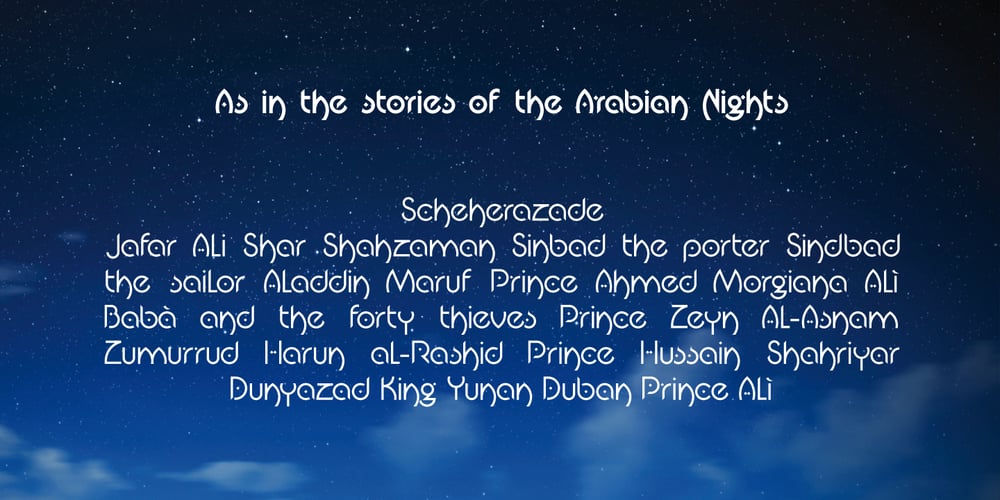
Jasmin
Jasmin font
Jasmin Font Family was designed by Vincenzo Crisafulli and published by Vincenzo Crisafulli. Jasmin contains 3 styles and family package options. Jasmin is a tribute to the ancient stories of The Thousand and One Nights, in which a main story serves as a connection for a series of other stories, just like all the other glyphs are derived from one of Jasmin’s letters or from a sign. A graphic path in which we tried to combine the calligraphy designed with a quill with geometric research. Among the glyphs there is one referring to a letter from a famous font by Paul Renner, made by Fonderia Bauer in 1927.